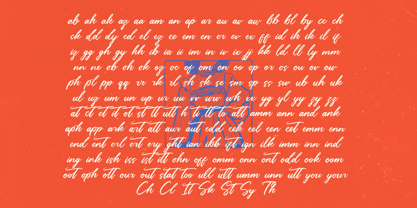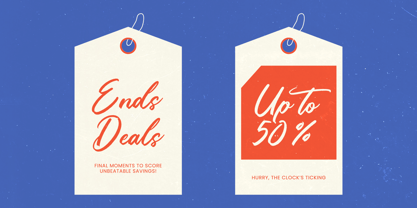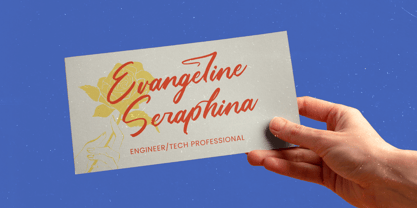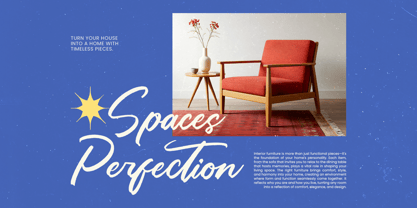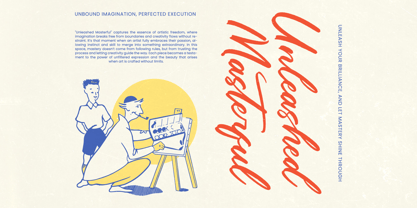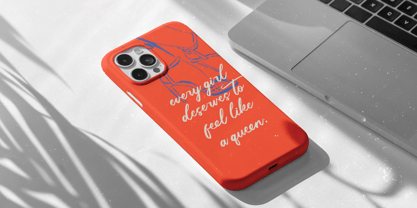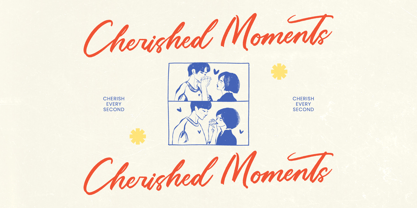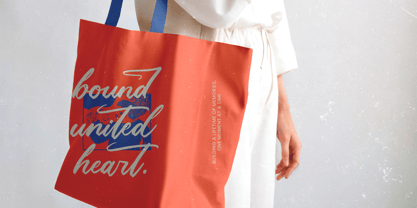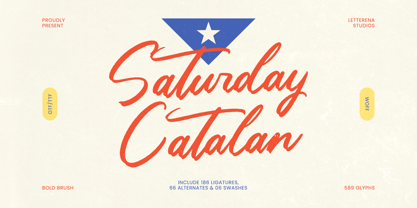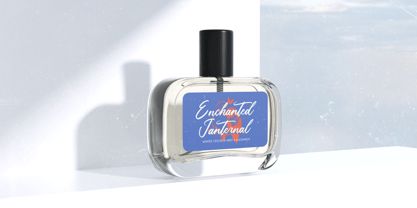
Saturday Catalan
The Saturday Catalan Font Family was designed by Heru Utama Putra and published by Letterena Studios. Saturday Catalan contains 2 styles and family package options. More about this family
Saturday Catalan is a bold brush script font crafted with energetic strokes, handcrafted texture, and expressive movement, offering 186 ligatures, 66 alternates, and 6 swashes to create a dynamic, authentic handwritten look. Designed for striking branding, retro-inspired layouts, café packaging, posters, social media visuals, and lifestyle merchandise, this typeface delivers a charismatic balance of boldness and fluidity, making it ideal for designers seeking a confident brush script with strong visual personality.